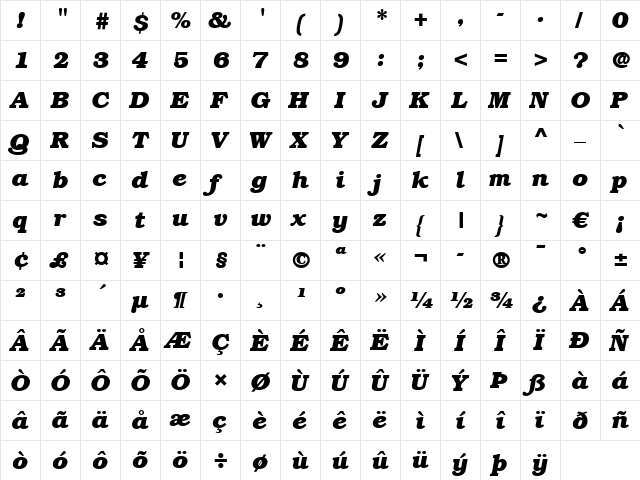
Bookman LT Medium Bold Italic
Design Context for Bookman LT Medium Typeface
Bookman LT Medium offers clean, dependable letterforms without strong stylistic allegiance, making it a practical choice for designers who need flexibility. Its italic angle brings a sense of urgency and motion to the letterforms. The heavy weight commands attention and anchors typographic hierarchies.
Pro Tip: Use Bookman LT Medium for emphasis, pull quotes, and subheadings where its slanted energy can add rhythm to the layout.